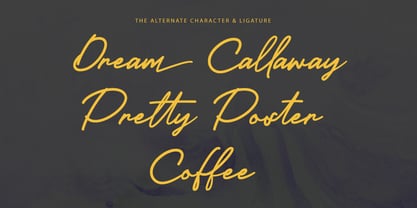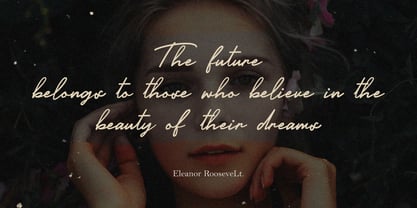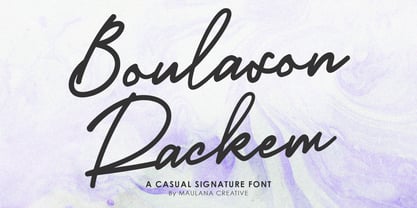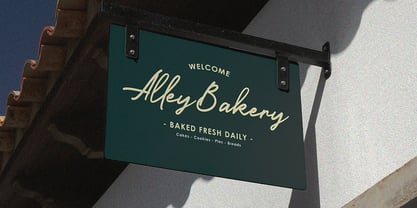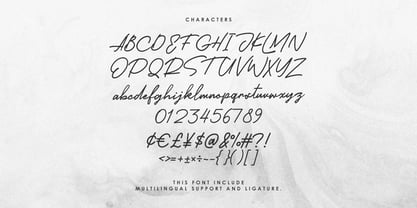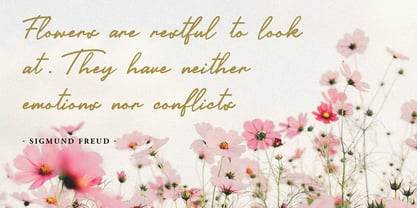
MC Boulason Rackem
by Maulana Creative
The MC Boulason Rackem Font Family was designed by Gilang Maulana and published by Maulana Creative. MC Boulason Rackem contains 1 styles. More about this family
Give your designs an authentic handcrafted feel. “Boulason Rackem Casual Monoline Signature Font” is perfectly suited to stationery, logos and much more. Include alternative character and ligature characters.
Designers: Gilang Maulana
Foundry: Maulana Creative